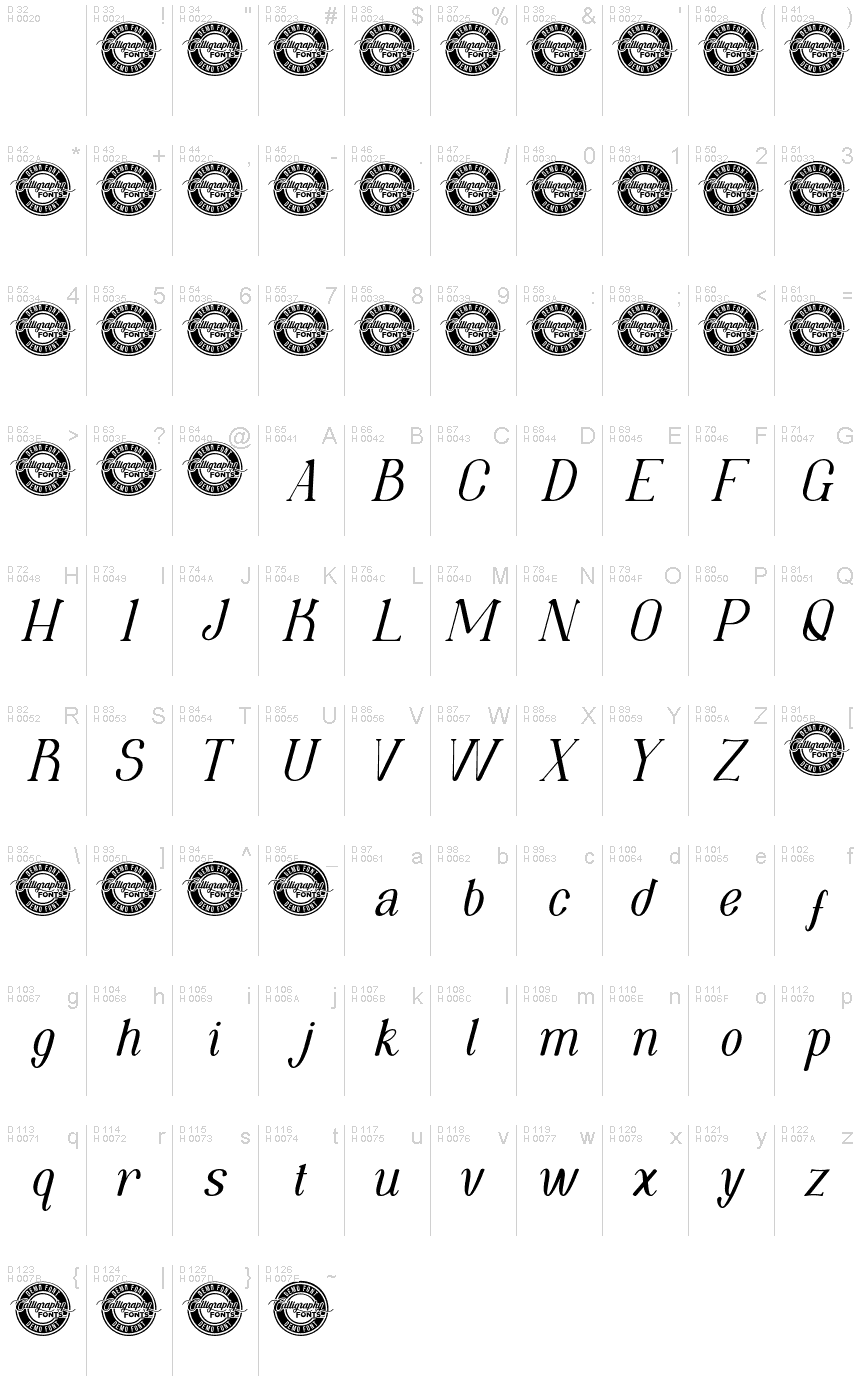
Mazy Theory Demo Italic
Mazy Theory Italic is an elegant display font designed by Calligraphy Fonts. The semi-light weight and italic style give it a sophisticated and refined feel, perfect for high-end branding projects, wedding invitations, and editorial layouts. Its unique design also makes it suitable for use in digital and print media where a touch of creativity is needed. Whether you're designing a chic logo or crafting an eye-catching poster, Mazy Theory Italic will add the perfect touch of elegance to your project. Let your creativity soar with this versatile typeface that's sure to impress!